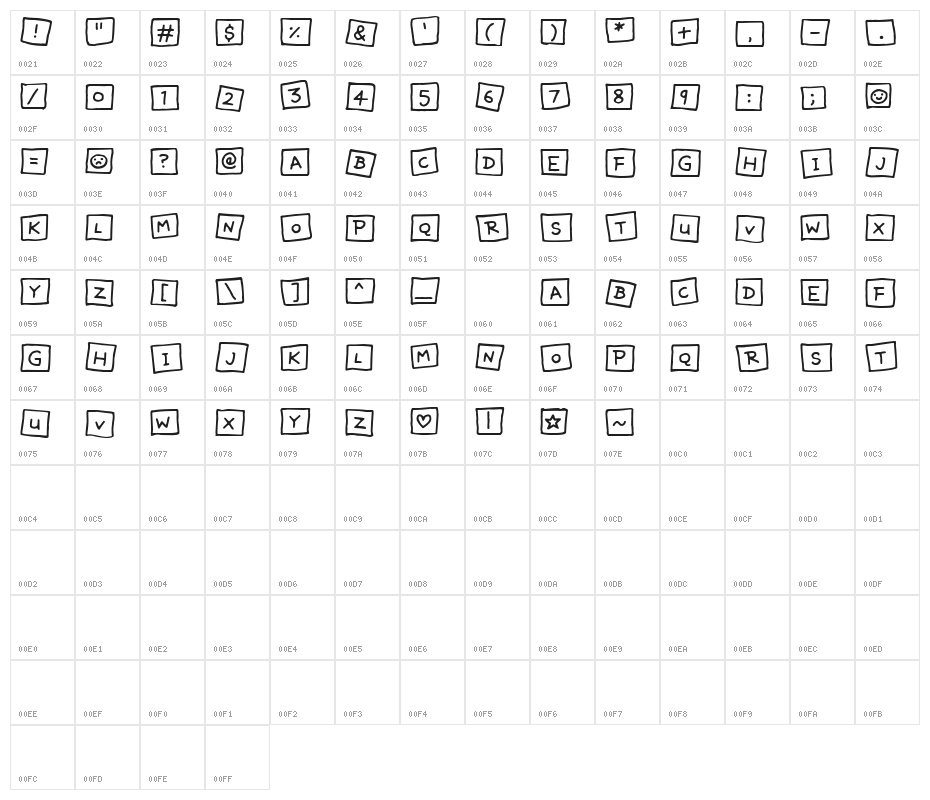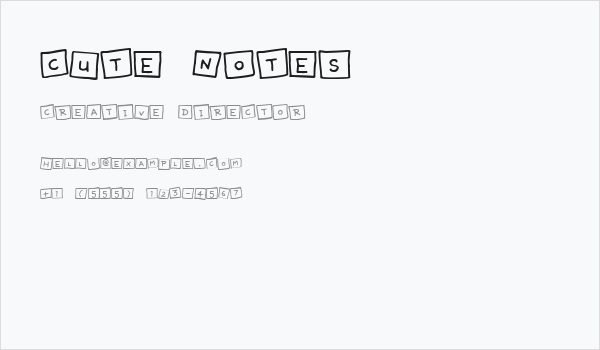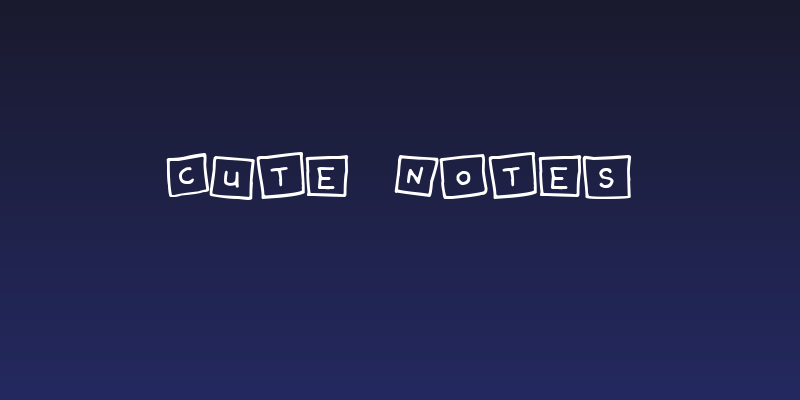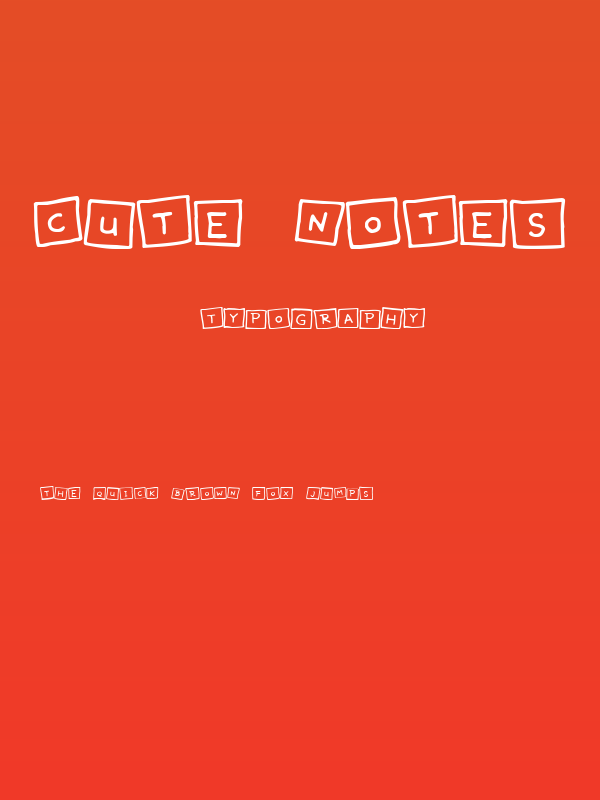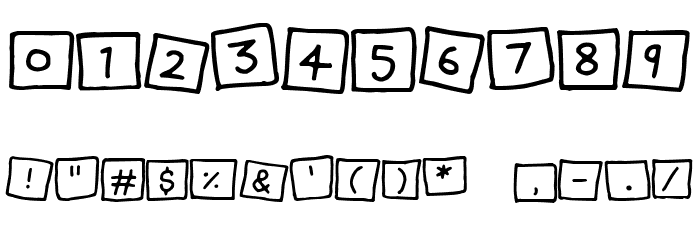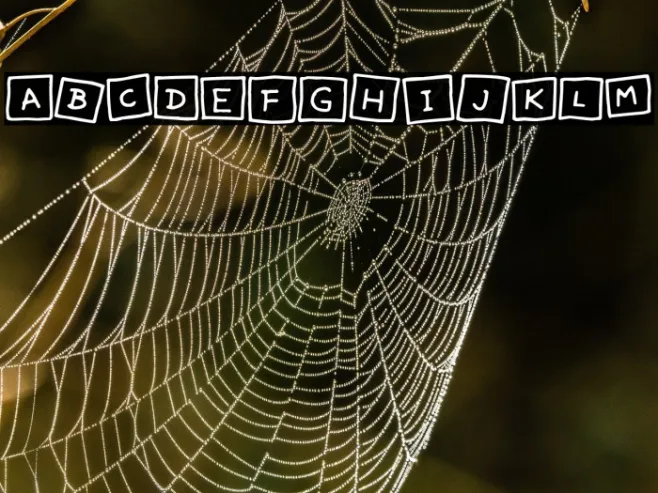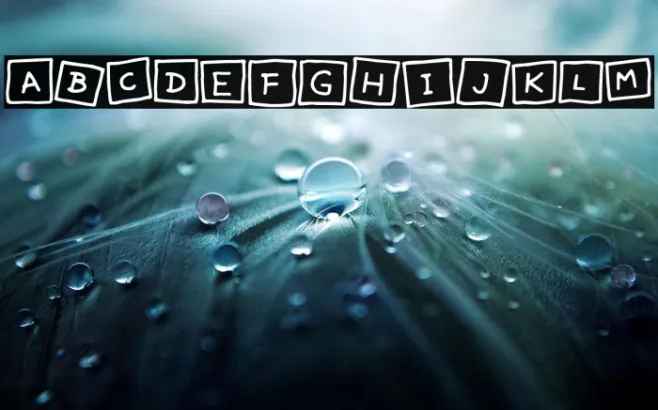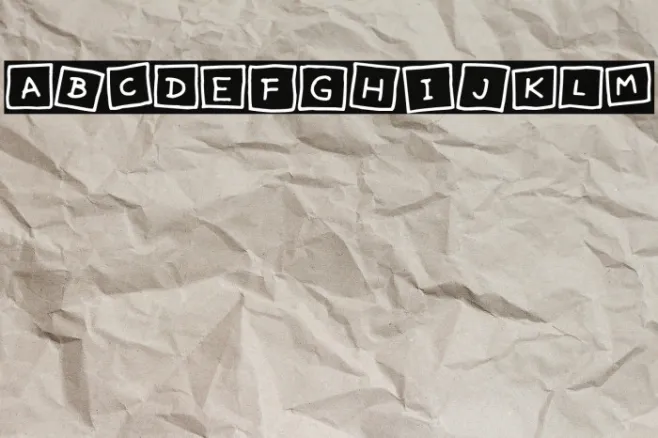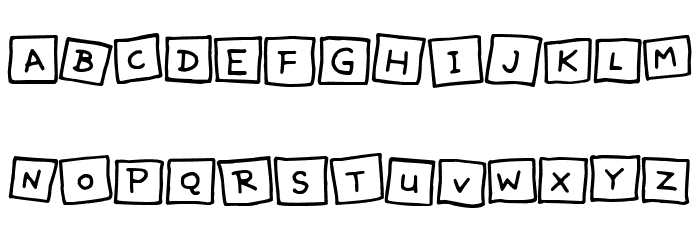
Cute Notes Font
Cute Notes Description
This playful and whimsical font features characters enclosed in irregular, hand-drawn squares, giving it a casual and friendly appearance. The letters and numbers are bold and slightly uneven, adding a touch of charm and informality. The font's quirky style makes it ideal for projects that require a fun and approachable aesthetic. The characters are well-spaced, ensuring readability while maintaining a lively and dynamic feel. This font is perfect for creative projects, children's materials, or any design that seeks to convey a sense of joy and spontaneity.
| Use Case | Headlines, Creative projects, Children's materials |
| Proposed Projects | Ideal for children's books, playful invitations, greeting cards, and creative posters. |